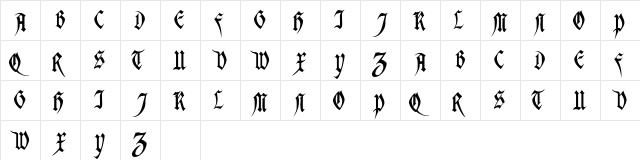
AvalonSSK Regular
Design Context for AvalonSSK Typeface
AvalonSSK is a composed and adaptable typeface that performs quietly and consistently across a wide range of design contexts.